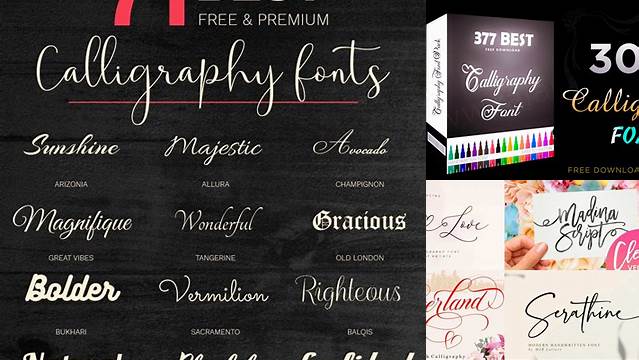
Best Calligraphy Fonts Free Download For Android
Hey guys! Looking to add a touch of elegance and personality to your Android device? Calligraphy fonts are the way to go! Whether you're crafting stunning social media posts, designing eye-catching invitations, or simply want your phone to reflect your unique style, the right font can make all the difference. This article will guide you through the best calligraphy fonts available for free download on Android, and we'll even explore how to use them. Let's dive in and discover some beautiful fonts!
1. Introduction to Calligraphy Fonts on Android
Calligraphy fonts have a unique charm that can elevate any design. On Android, these fonts can be used in various applications, from social media to document creation. Using calligraphy fonts not only enhances the visual appeal of your content but also adds a personal touch. Imagine crafting a heartfelt message with a beautifully flowing script – that's the power of calligraphy! In this section, we’ll explore the basics of calligraphy fonts, why they're so popular, and how you can start using them on your Android device. We'll also discuss the difference between various styles of calligraphy and which ones are best suited for different purposes. So, whether you're a seasoned designer or just starting out, get ready to unleash your creativity with stunning calligraphy fonts!
2. Top 5 Free Calligraphy Fonts for Android
Finding the perfect font can be overwhelming, especially with so many options available. But don't worry, we've done the hard work for you! Here are our top 5 free calligraphy fonts for Android that you absolutely need to check out. These fonts have been selected based on their aesthetic appeal, readability, and versatility. Each font brings its own unique flair, so you're sure to find something that matches your style. We'll provide a brief overview of each font, highlighting what makes it special and suggesting how you can best use it. So, let’s get started and discover these fantastic free calligraphy fonts that will make your Android device stand out!
4. Using Calligraphy Fonts in Social Media Posts
Social media is all about grabbing attention, and calligraphy fonts can be your secret weapon! Imagine your posts standing out from the crowd with elegant, handwritten-style text. In this section, we'll explore how to effectively use calligraphy fonts in your social media content. We'll discuss which fonts work best for different platforms, how to pair them with images and backgrounds, and tips for creating visually appealing posts that resonate with your audience. Whether you're posting on Instagram, Facebook, or Twitter, these calligraphy fonts will help you make a lasting impression.
5. Calligraphy Fonts for Invitation Design
Planning a special event? Invitations are your guests' first impression, so make them count! Calligraphy fonts add a touch of sophistication and elegance that's perfect for invitations. Whether it's a wedding, a birthday, or a formal gathering, the right font can set the tone and create a lasting impression. In this section, we'll explore the best calligraphy fonts for invitation design and provide tips for layout and typography. Get ready to create invitations that your guests will cherish!
6. Calligraphy Fonts in Note-Taking Apps
Tired of the same old boring fonts in your note-taking app? Why not spice things up with calligraphy fonts? They can add a personal touch to your notes and make the writing process more enjoyable. In this section, we'll explore how to use calligraphy fonts in various note-taking apps on Android. We'll also discuss which fonts are most legible for note-taking and how to customize your note-taking experience. Get ready to take notes in style!
7. Customizing Android with Calligraphy Fonts
Your Android device is an extension of your personality, so why not customize it with calligraphy fonts? From your home screen to your messaging app, you can use these fonts to create a unique and stylish look. In this section, we'll explore various ways to customize your Android device with calligraphy fonts. We'll discuss how to change the system font, use fonts in custom launchers, and personalize your overall Android experience. Get ready to make your device truly yours!
8. Calligraphy Fonts for Graphic Design on Android
If you're a graphic designer using Android, calligraphy fonts are a must-have in your toolkit. They can add a touch of elegance and artistry to your designs, making them stand out from the crowd. In this section, we'll explore how to use calligraphy fonts in graphic design apps on Android. We'll discuss the best fonts for various design projects, tips for pairing fonts with other elements, and how to create stunning visuals on your mobile device.
9. Calligraphy Fonts for Business Branding
First impressions matter, especially in business. Calligraphy fonts can help you create a memorable and professional brand identity. From your logo to your marketing materials, the right font can convey your brand's personality and values. In this section, we'll explore how to use calligraphy fonts for business branding on Android. We'll discuss which fonts are best suited for different industries, tips for creating a cohesive brand image, and how to make your brand stand out.
10. Calligraphy Fonts in Photo Editing Apps
Adding text to your photos is a great way to personalize them and share your story. Calligraphy fonts can add a touch of elegance and style to your photos, making them even more captivating. In this section, we'll explore how to use calligraphy fonts in photo editing apps on Android. We'll discuss which fonts work best with different types of photos, tips for text placement and color, and how to create stunning visual effects.
11. Calligraphy Fonts for Presentations on Android
Want to make your presentations more engaging and memorable? Calligraphy fonts can help you add a touch of elegance and personality to your slides. In this section, we'll explore how to use calligraphy fonts in presentation apps on Android. We'll discuss which fonts are best for readability and visual appeal, tips for creating a cohesive design, and how to deliver presentations that leave a lasting impression.
12. Understanding Calligraphy Styles
Calligraphy is an art form with a rich history and diverse styles. From classic scripts to modern interpretations, there's a calligraphy style for every taste and purpose. In this section, we'll delve into the world of calligraphy styles, exploring different scripts like Copperplate, Spencerian, and Modern Calligraphy. Understanding these styles will help you choose the right font for your projects and appreciate the beauty of calligraphy.
13. Pairing Calligraphy Fonts with Other Fonts
Choosing the right font is crucial, but pairing it effectively with other fonts is equally important. A well-paired font combination can enhance readability and visual appeal, while a poor pairing can be distracting. In this section, we'll explore the art of pairing calligraphy fonts with other fonts. We'll discuss the principles of typography, tips for creating harmonious combinations, and examples of successful font pairings.
14. The History of Calligraphy
Calligraphy has a rich and fascinating history, dating back thousands of years. From ancient scripts to modern interpretations, calligraphy has evolved across cultures and time periods. In this section, we'll take a journey through the history of calligraphy, exploring its origins, development, and significance in various societies. Understanding the history of calligraphy will deepen your appreciation for this beautiful art form.
15. Calligraphy Fonts for Special Occasions
Certain occasions call for a touch of elegance and sophistication, and calligraphy fonts are the perfect choice. Whether it's a wedding, a graduation, or a milestone celebration, calligraphy fonts can add a touch of class to your designs. In this section, we'll explore the best calligraphy fonts for special occasions and provide tips for using them effectively.
16. Best Cursive Fonts for Android
Cursive fonts, with their flowing and connected letterforms, are a classic choice for adding elegance and personality to your Android device. In this section, we'll explore the best cursive fonts available for Android, highlighting their unique characteristics and suggesting how you can use them in various applications.
17. Free Handwritten Fonts for Android
Handwritten fonts offer a personal and informal touch, perfect for creating a friendly and approachable vibe. In this section, we'll dive into the world of free handwritten fonts for Android, showcasing a variety of styles from playful to sophisticated.
18. Elegant Fonts for Android Design
Elegance is timeless, and the right font can convey a sense of sophistication and refinement. In this section, we'll explore elegant fonts specifically tailored for Android design, helping you create visually stunning and polished projects.
19. Stylish Fonts for Android Devices
Looking to make a statement with your font choices? In this section, we'll showcase stylish fonts that can add a unique flair to your Android device, ensuring your text stands out from the crowd.
20. Modern Calligraphy Fonts for Android
Modern calligraphy fonts offer a fresh and contemporary take on traditional scripts, blending elegance with a touch of modernity. In this section, we'll explore the world of modern calligraphy fonts for Android, highlighting their versatility and appeal.
21. Calligraphy Font Generator Apps for Android
Want to create custom calligraphy text on the go? Calligraphy font generator apps for Android make it easy to transform your words into beautiful designs. We'll explore the best apps available and guide you through the process.
22. Calligraphy Keyboard Apps for Android
Typing in calligraphy has never been easier! Calligraphy keyboard apps for Android allow you to use your favorite calligraphy fonts directly in your messages and other text-based applications. We'll explore the top apps in this category.
23. Calligraphy Font Styles for Names on Android
Personalize your phone with calligraphy fonts perfect for displaying names. Whether it's on your lock screen or in your contacts, adding a touch of elegance to names is a stylish choice.
24. Calligraphy Fonts for Quotes on Android
Quotes often carry profound meanings, and displaying them in a calligraphy font can enhance their impact. This section covers which fonts to use for different types of quotes and where to use them.
25. How to Use Calligraphy Fonts in WhatsApp on Android
Spice up your conversations by using calligraphy fonts in WhatsApp. We'll explore how to change font styles within the app and suggest the best calligraphy options for messages.
26. Calligraphy Fonts for Instagram Stories on Android
Instagram Stories offer a canvas for creativity, and using calligraphy fonts can make your content more visually appealing. We'll provide tips on how to incorporate calligraphy in your stories.
27. Best Font Apps for Android Calligraphy
Android font apps provide access to a vast library of calligraphy fonts. This section reviews the top font apps for Android users interested in calligraphy, including features and user experience.
28. Troubleshooting Font Installation on Android
Having trouble installing calligraphy fonts? This section offers solutions to common font installation issues on Android, ensuring you can start using your new fonts without hassle.
29. Legal Considerations for Free Fonts on Android
30. Future Trends in Calligraphy Fonts for Android
The world of calligraphy is constantly evolving. We'll explore emerging trends in calligraphy fonts for Android, including new styles, technologies, and applications, so you can stay ahead of the curve.